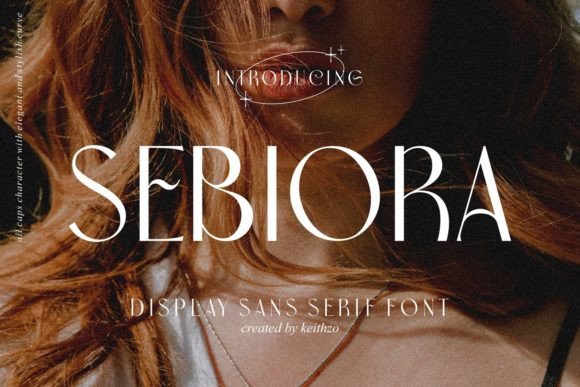
Introducing Sebiora Font, the ultimate choice for anyone looking to take their design projects to new heights. Crafted with meticulous attention to detail by the talented Keithzo from 7NTypes, this sans serif font is a game-changer in the world of typography.
Sebiora Font is more than just a font – it's a masterpiece that will instantly elevate your project to a whole new level of sophistication and elegance. Its refined curves and impeccable design exude a sense of luxury and professionalism that is simply unmatched. Whether you're working on a business email, a website, or any other high-end design, Sebiora Font is the secret ingredient that will make your work stand out from the crowd.
But what sets Sebiora Font apart from the rest? It's not just its stunning aesthetics, but also its incredible versatility. With a wide range of amazing glyphs and ligatures, this font gives you the freedom to create unique and eye-catching designs effortlessly. Its PUA encoding ensures that accessing these special characters is a breeze, allowing you to unleash your creativity without any limitations.
Imagine the impact your next project will have with Sebiora Font. From captivating headlines that grab attention to elegant body text that keeps readers engaged, this font has it all. It's the perfect tool to convey your message with style and class, leaving a lasting impression on your audience.